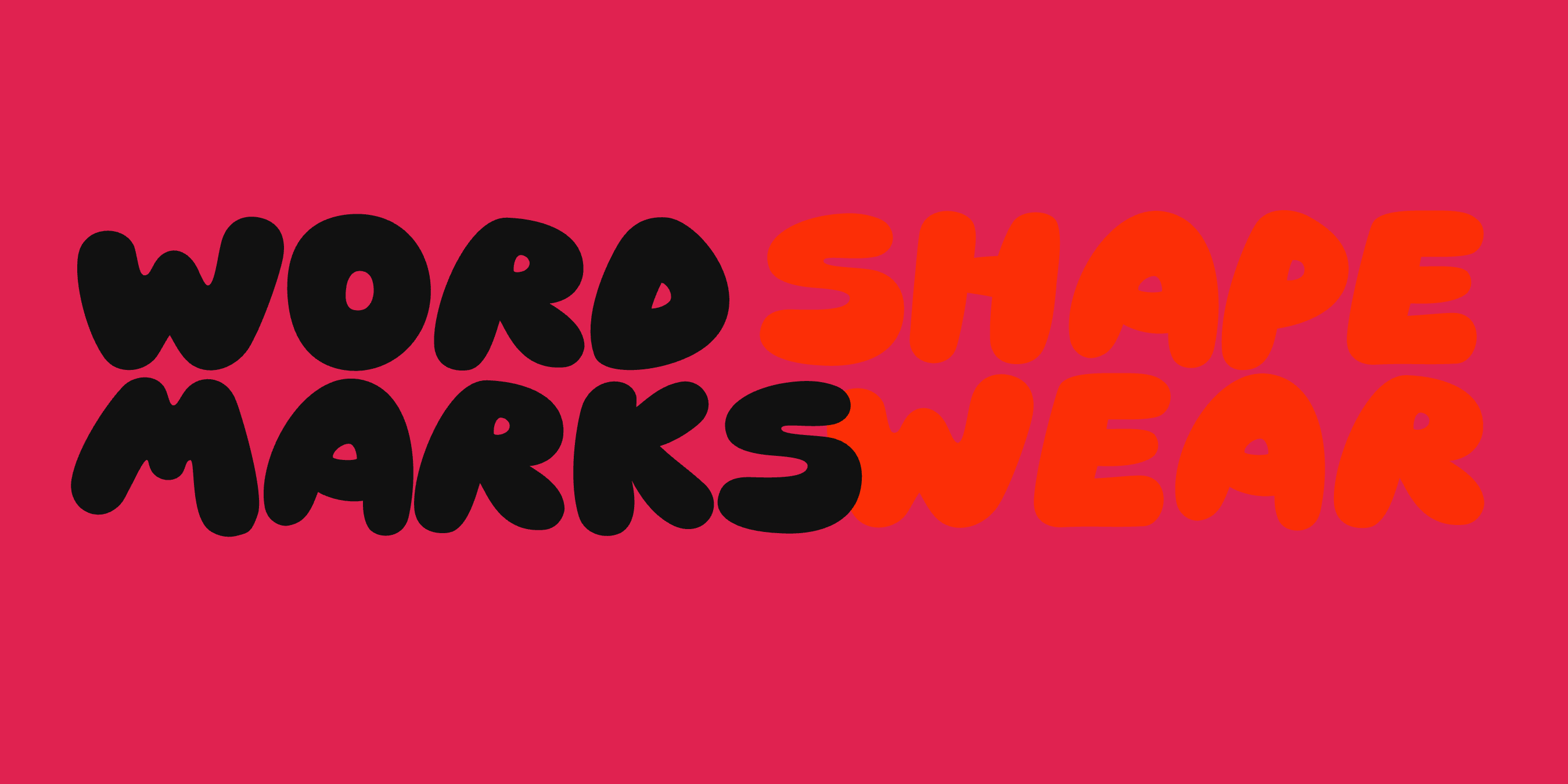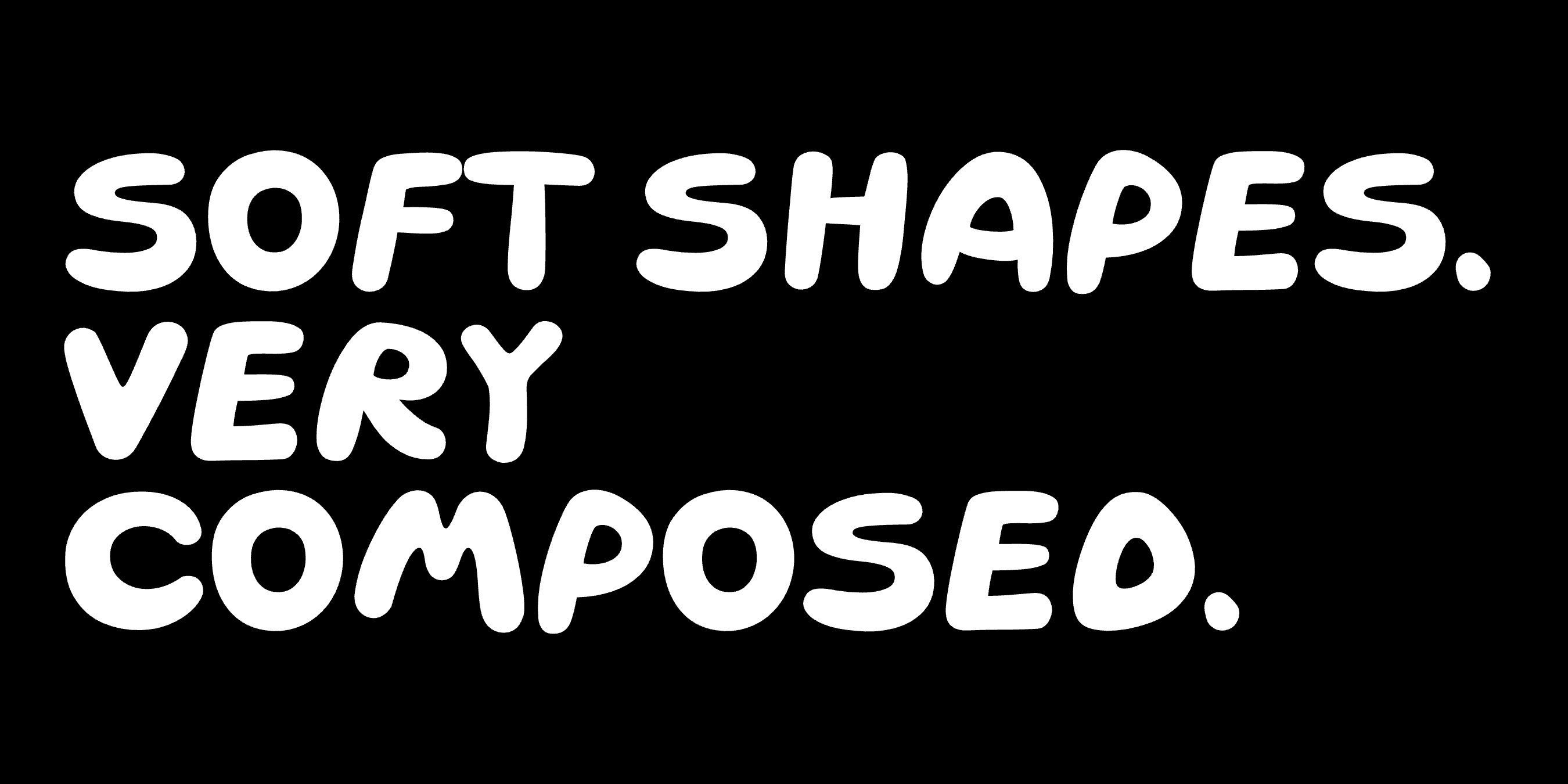
What font does Skims use?
The Skims wordmark is a custom rounded sans in all caps — heavy, soft terminals, tight spacing. What it's doing, and the closest fonts you can buy.
“Shapewear For Wordmarks.” set in Skay, Nuido, Goji, a Mojomox font
The Skims wordmark is set in all capitals in a soft, rounded sans serif with heavy, full letterforms and very tight spacing. It appears to be custom rather than a licensed retail typeface — which is normal at that scale, and means there is no font you can buy that will match it exactly.
What is doing the work is easy enough to read off the shapes. The strokes are thick and even, with no real thick-to-thin variation. The terminals are fully rounded, so the letters read as soft rather than engineered. The inner parts of the S and M are squished small, which is what makes the wordmark feel dense and physical rather than airy. Set in caps at a wide-ish width with the letters nearly touching, it reads as calm and confident without being cold.
That combination is the point. Rounded terminals and heavy weight usually push a brand toward playful or childlike; the all-caps setting and tight spacing pull it back toward composed. Sitting between the two is what makes it work for a label built on body neutrality — approachable, unfussy, not shouting.
The closest font in our shop
The nearest thing we make is Skay. It is an organic, hand-drawn bubble font with an inky brush quality, available in all uppercase across nine weights. It shares the soft full shapes, the rounded terminals and the caps-only setting, with more hand in the drawing than a fully constructed wordmark has — which suits smaller labels that want the same warmth without looking like they are copying.
If you want the softness with a more geometric, constructed skeleton, Nuido and Goji are the closer picks — rounded sans serifs built on a clean frame, both running nine weights plus a variable font.